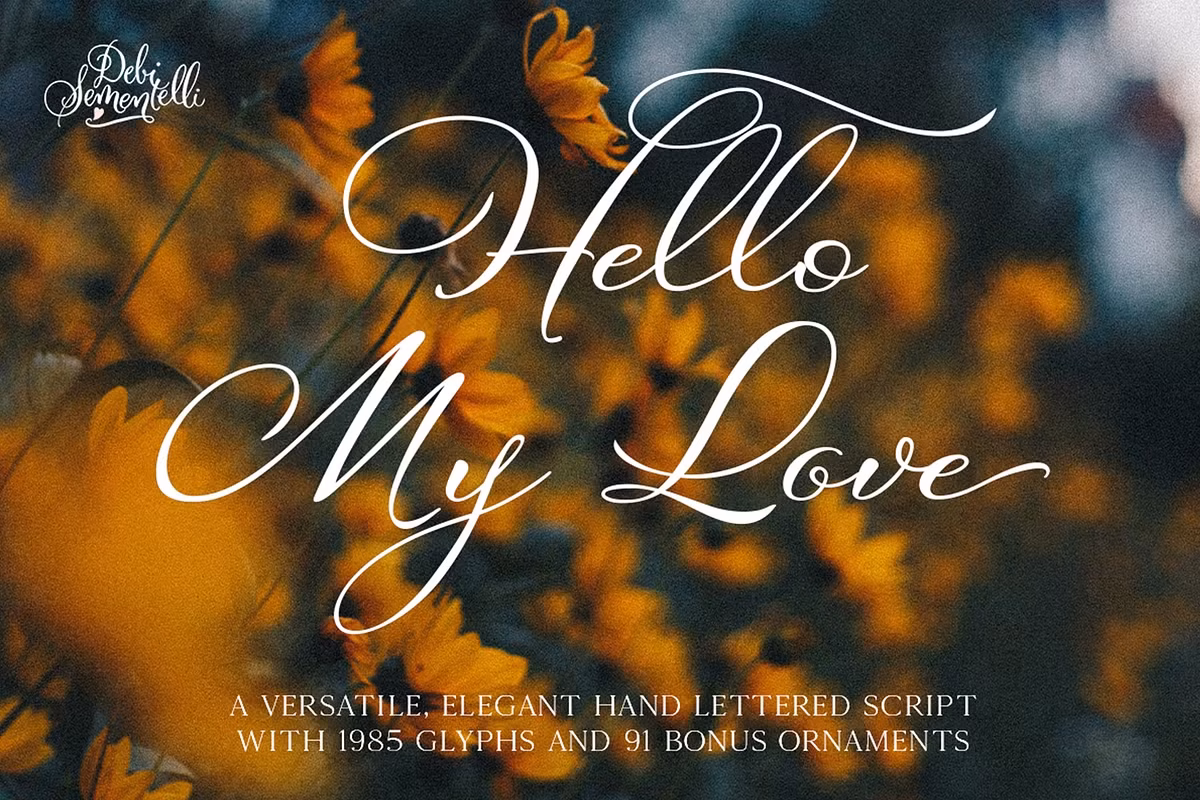
Hello My Love Pro Script Font Free Download
Hello My Love Pro Script Font Free Download is a beautifully crafted handwritten script typeface that radiates warmth and elegance. With its fluid strokes, elegant curves, and delicate swashes, this font is perfect for wedding invitations, greeting cards, branding, social media posts, and any project that requires a personal and romantic touch.
The Pro version of Hello My Love offers smooth connections and a highly readable flow, making it ideal for both display text and longer writing. Whether you're creating heartfelt designs or sophisticated branding materials, this font provides a romantic, authentic touch to your typography.